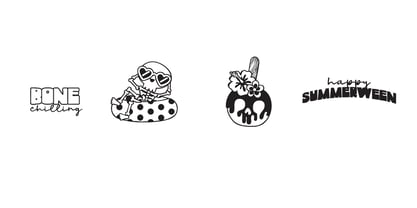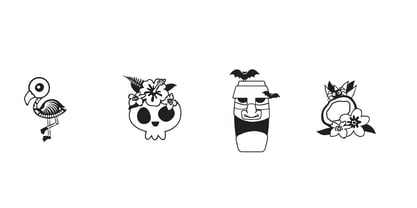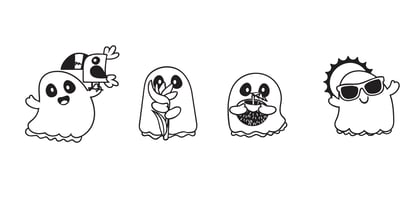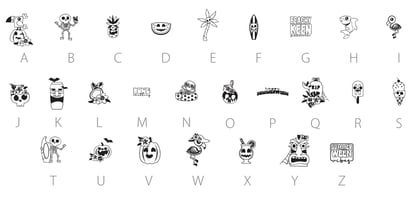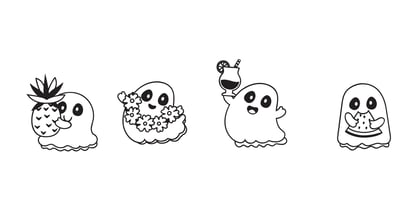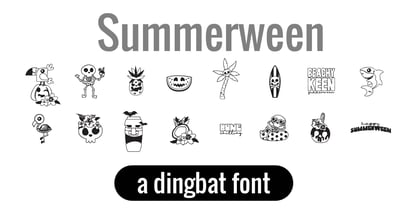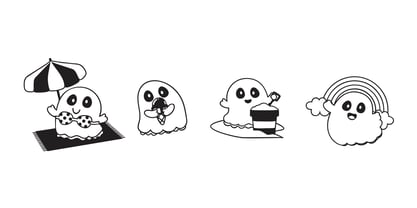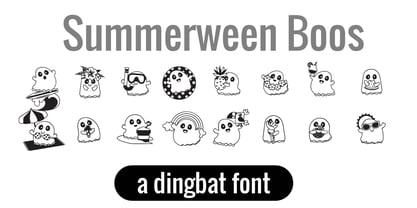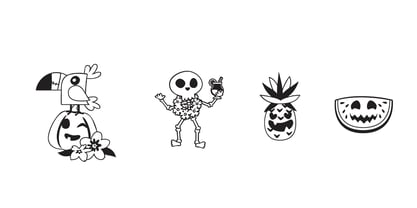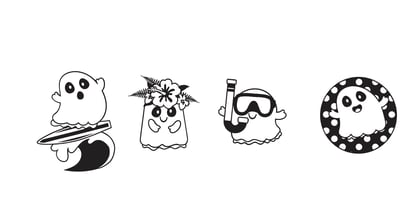
DB Summerween
by Illustration Ink
The DB Summerween Font Family was designed by Illustration Ink and published by Illustration Ink. DB Summerween contains 2 styles and family package options.
Unlock endless creativity with two perfectly coordinated fonts! There are two dingbat fonts in this family, both featuring the cutest Halloween characters and imagery with an summer and tropical elements. Tired of spending hours searching for the perfect icons and graphics? Our dingbat fonts put dozens of cohesive, scalable designs at your fingertips. Simply install the font and type a letter to produce a pre-made image. From charming seasonal icons for holiday cards to intricate frames for your invitations, these fonts let you create stunning designs for vinyl cutting, paper crafts, planners, and more. What you'll get with each purchase: A complete set of high-quality graphics, all designed to work beautifully together. Instant access to the designs directly from your cutting or design software. The ability to cut, sketch, and print the designs with ease. A cost-effective way to build your creative asset library without buying individual clip art files.
About Illustration Ink
Illustration Ink has been at the forefront of creating unique and innovative fonts and digital art since 1994. Renowned for their ability to produce a diverse range of high-quality fonts and digital art at affordable prices, their products have gained immense popularity among quilting companies, scrapbookers, crafters, and educators. You can also discover their creations under various brands, including Creating Keepsakes fonts, Jillustration products, and Doodlebats. Illustration Ink fonts are ideal for achieving a charming “handmade” aesthetic, making them perfect for titles, journaling, and scrapbooking projects. With a focus on creativity and craftsmanship, Illustration Ink stands out in the industry, catering to those who appreciate artistic expression in their work.